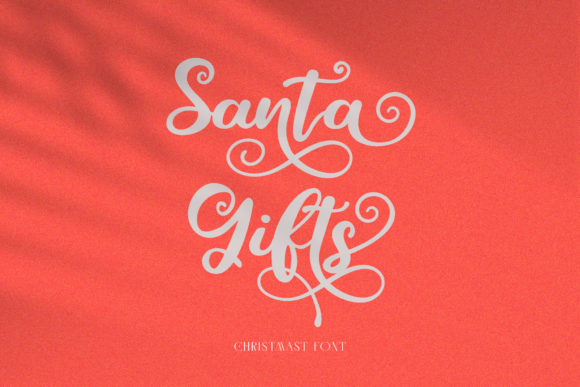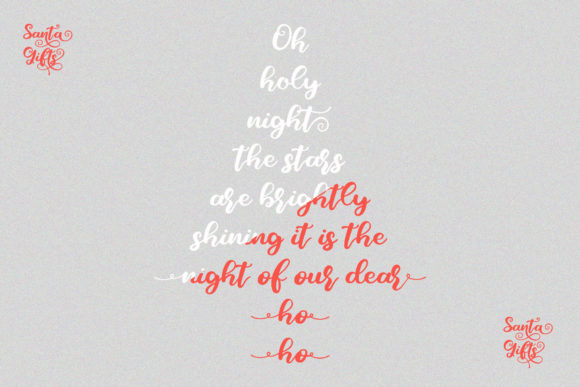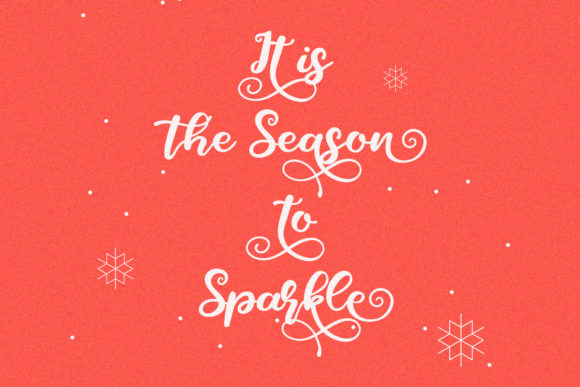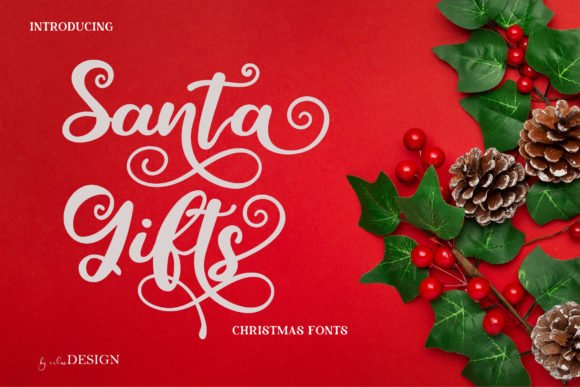
Introduction to Santa Gifts Font
Santa Gifts is a lovely and delicate script font that exudes elegance and class.
This font was particularly crafted for those who need a beautiful and refreshing look to their designs Santa Gifts is PUA encoded which means you can access all of the glyphs and swashes with ease.
Key Features of Santa Gifts Font